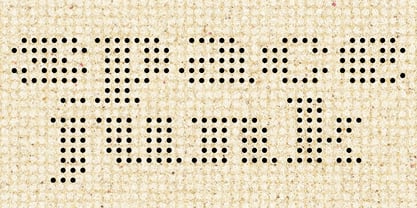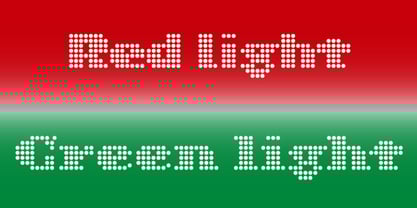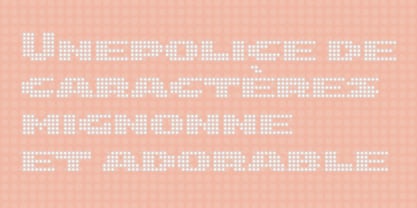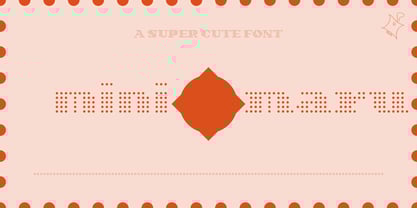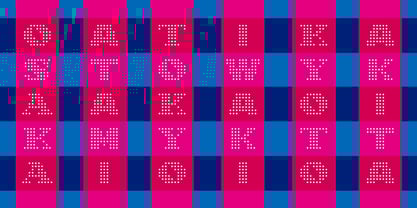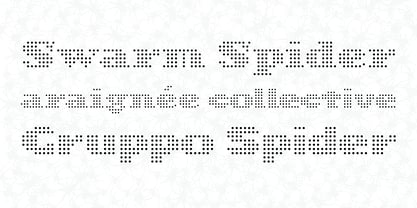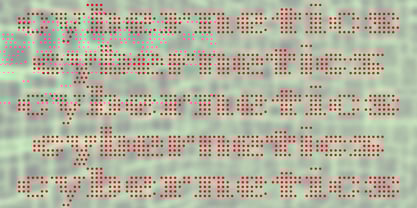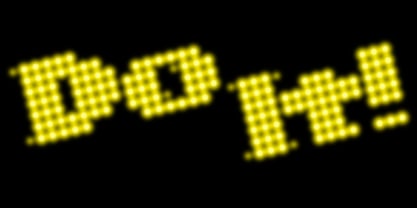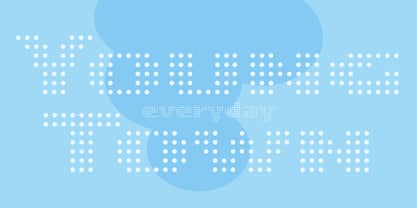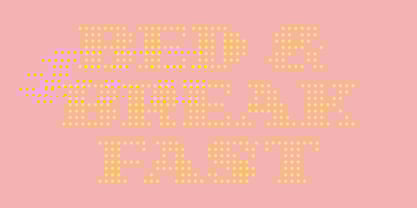
Minimaru
by sugargliderz
The Minimaru Font Family was designed by Shuji Kikuchi and published by sugargliderz. Minimaru contains 2 styles and family package options. More about this family
This font follows a simple rule: circles of the same size lined up in equal rhythm — circle, space, circle, space. That steady beat turns letters into patterns and gives them a playful sense of order.
Blow it up big, and the effect really shines. On a poster or event banner, it grabs attention in an instant. On packaging or a logo, it becomes a bold, memorable mark that feels both simple and unique.
sugargliderz is a small private foundry that started its activities in 2006. I make fonts every day based on the principle of giving shape to the things I am interested in. I don't see letters as something to design, but as something to shape. I create fonts by giving importance to "numerical values," "senses," and "coincidences. Of course, if someone somewhere likes it and uses it, I am very happy. But I always deviate from the standard way of thinking, somehow.